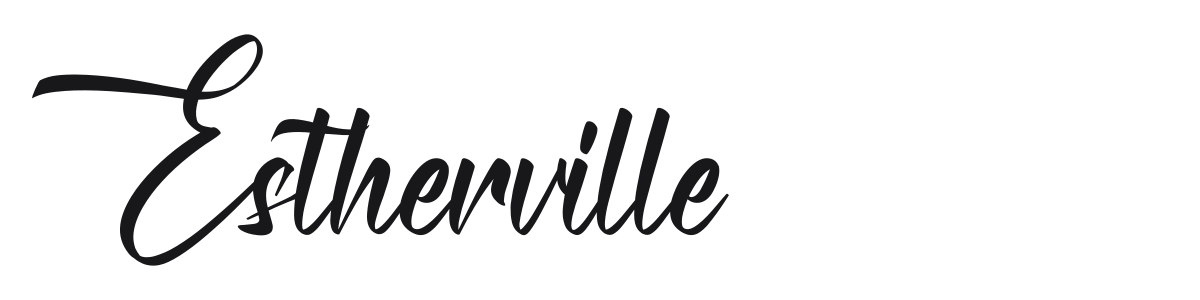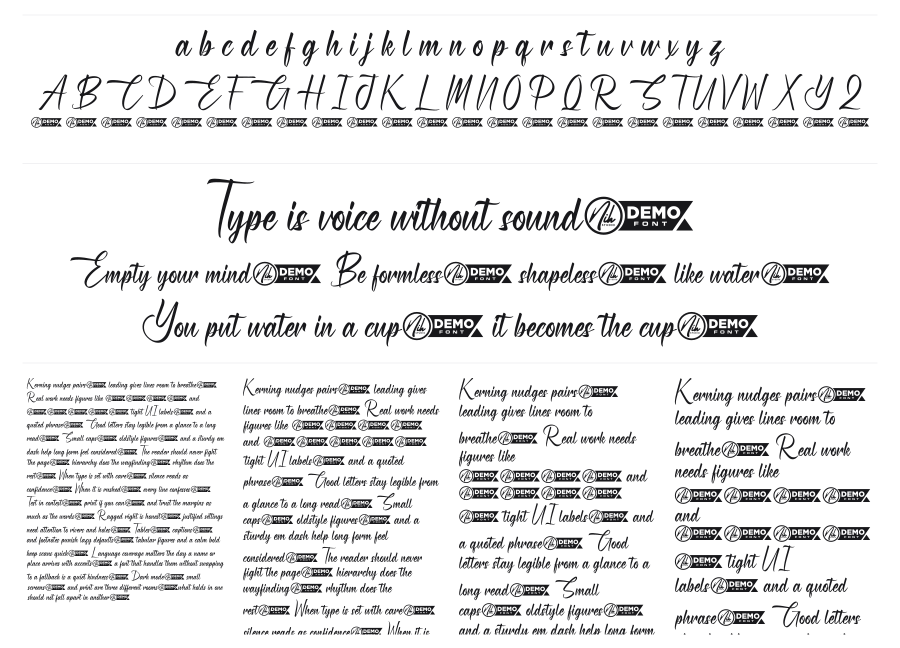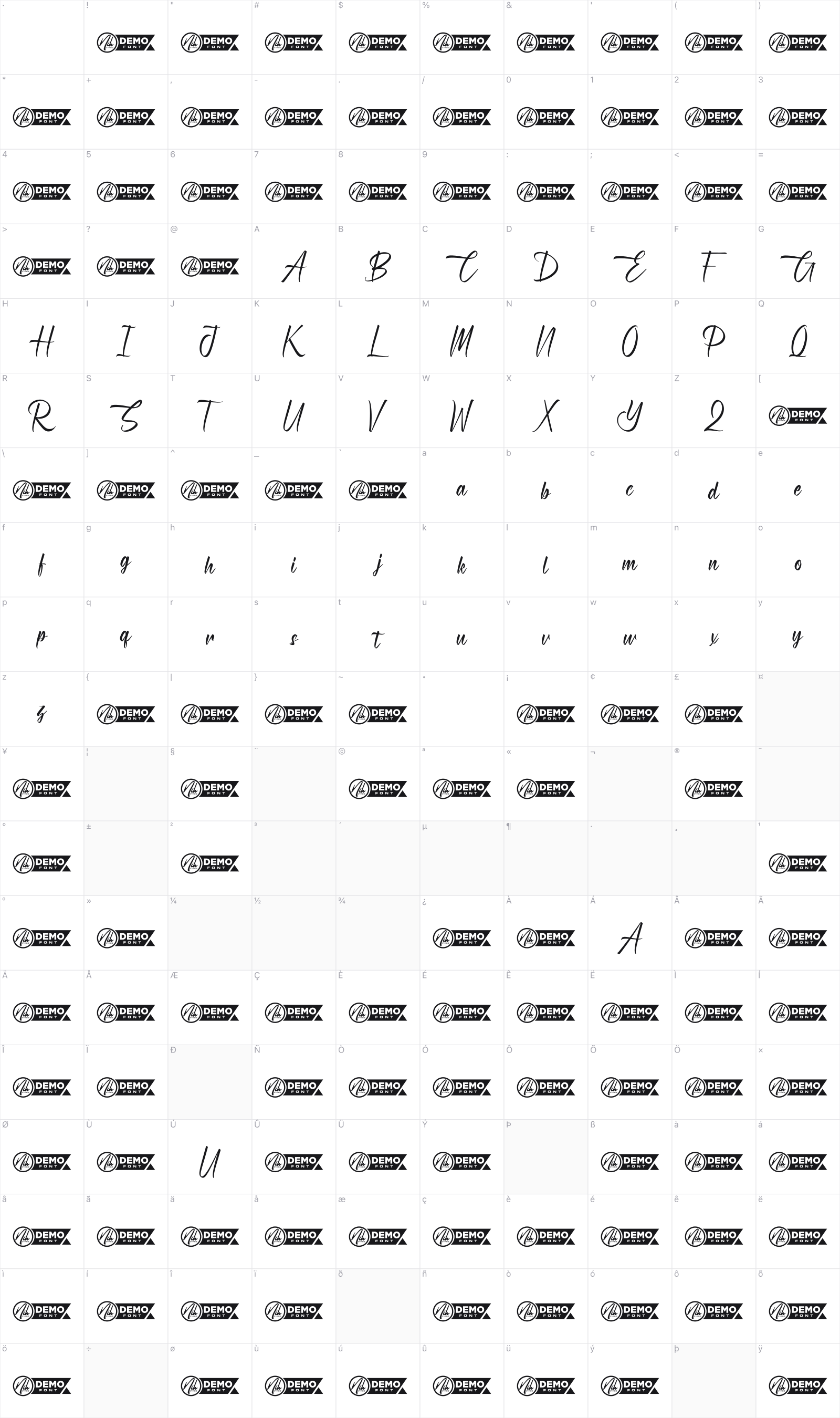
Estherville
Estherville is a bold casual brush script with strong stroke contrast and a naturally flowing, hand-lettered feel. Thick downstrokes and hairline upstrokes create an authentic ink-on-paper quality, with letters that connect and overlap in a lively rhythm. It brings expressive warmth to brand identities, packaging, and any headline that needs a human touch.